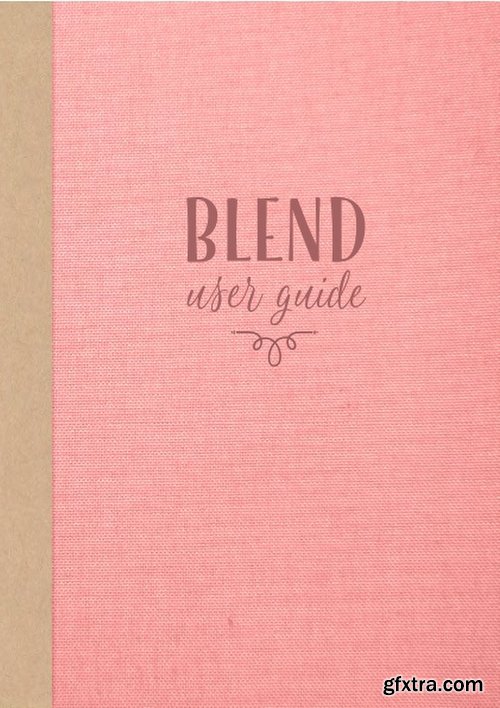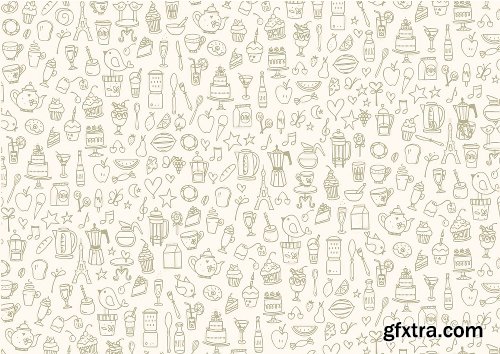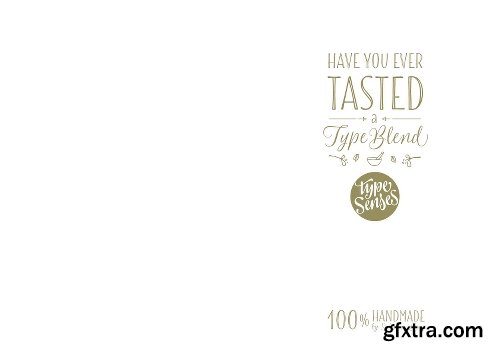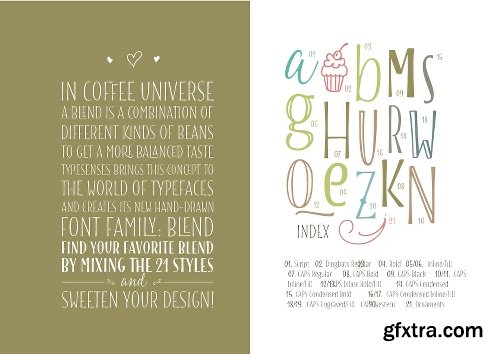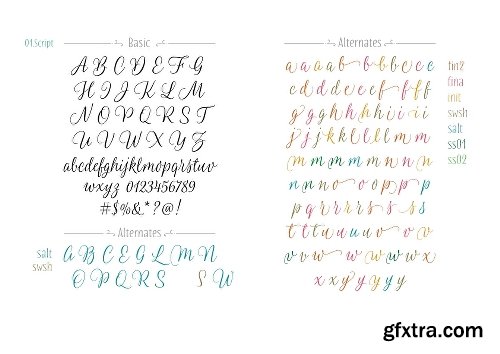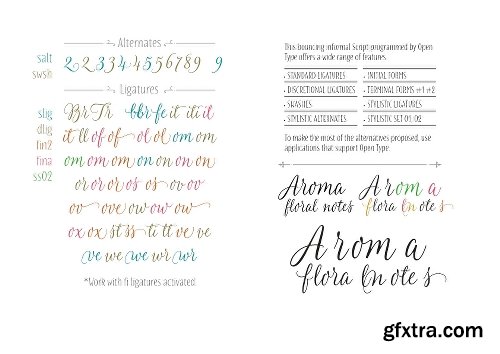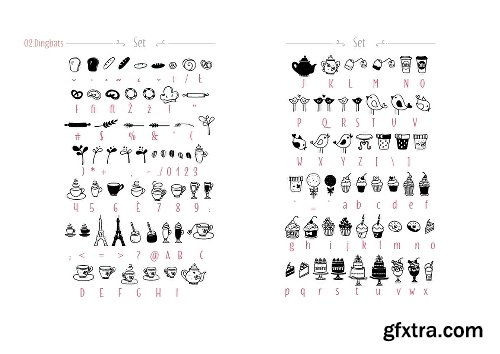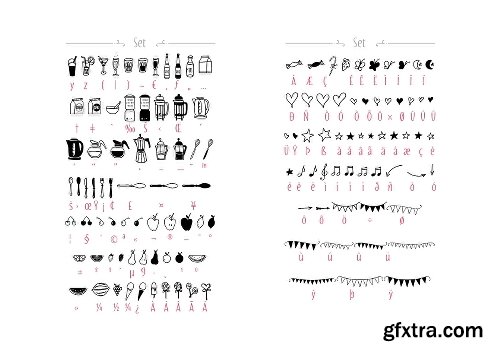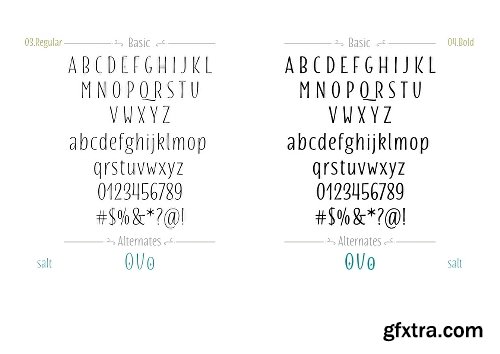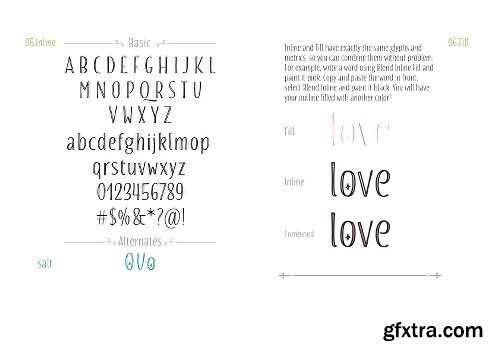
Have you ever tasted a type blend? In Coffee universe, a blend is a combination of different kinds of beans to get a more balanced taste. Typesenses brings this concept to the world of typefaces and creates its new hand-drawn font family: Blend.
Find your favorite blend by mixing the 21 styles (they can be purchased separately or all together in the Family Package):
- A bouncing informal Script programmed by Open Type that offers a wide range of features like ligatures, swashes, endings, initial forms and lots of alternates (work with fi ligatures activated)
- Playful Dingbats, among others, cups of coffee and tea, hearts, stars, cupcakes, pies.
- Decorative Ornaments, frames and ribbons
- Casual Roman legible fonts, Regular and Bold
- Inline hand-lettered fonts and their fills to make the effect it is painted with another color. They have exactly the same glyphs and metrics, so you can combine them without problem. For example, write a word using Blend Inline Fill and paint it Cyan. Copy and paste the word in front, select Blend Inline and paint it black. You will have your outline filled with another color!
- Handmade Roman Capitals with Discretional Ligatures
This layered font is flavored with the handcrafted spirit that characterizes all Typesenses’ fonts and it is perhaps the one that most shows the hand of its author, Sabrina M. Lopez. Although this cute collection takes elements from visual universe of Bakeries and Coffee Stores, it is only a metaphor. You can create your own look and use it for logos, magazines, menus, books for children, invitations, wedding/greeting cards, packaging, labels, winery, etc. All your designs will have a lovely homemade touch with Blend.
Use Blend and sweeten your design!